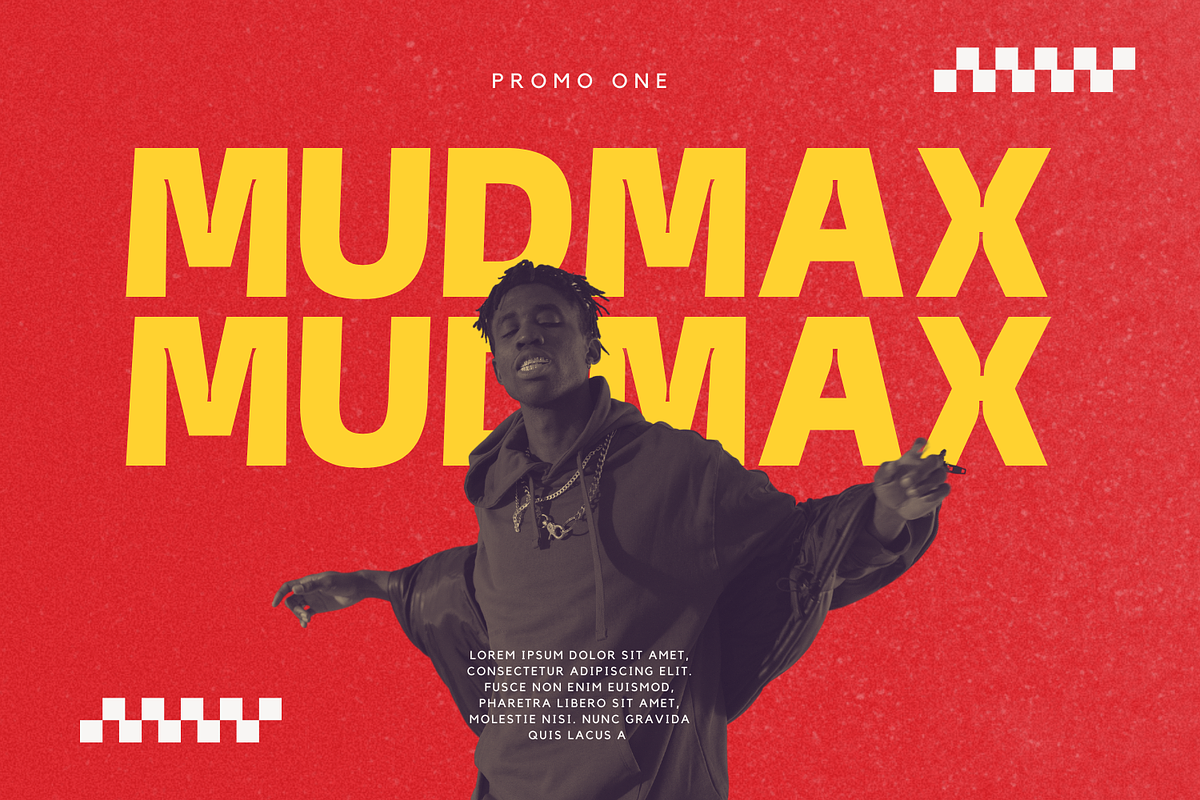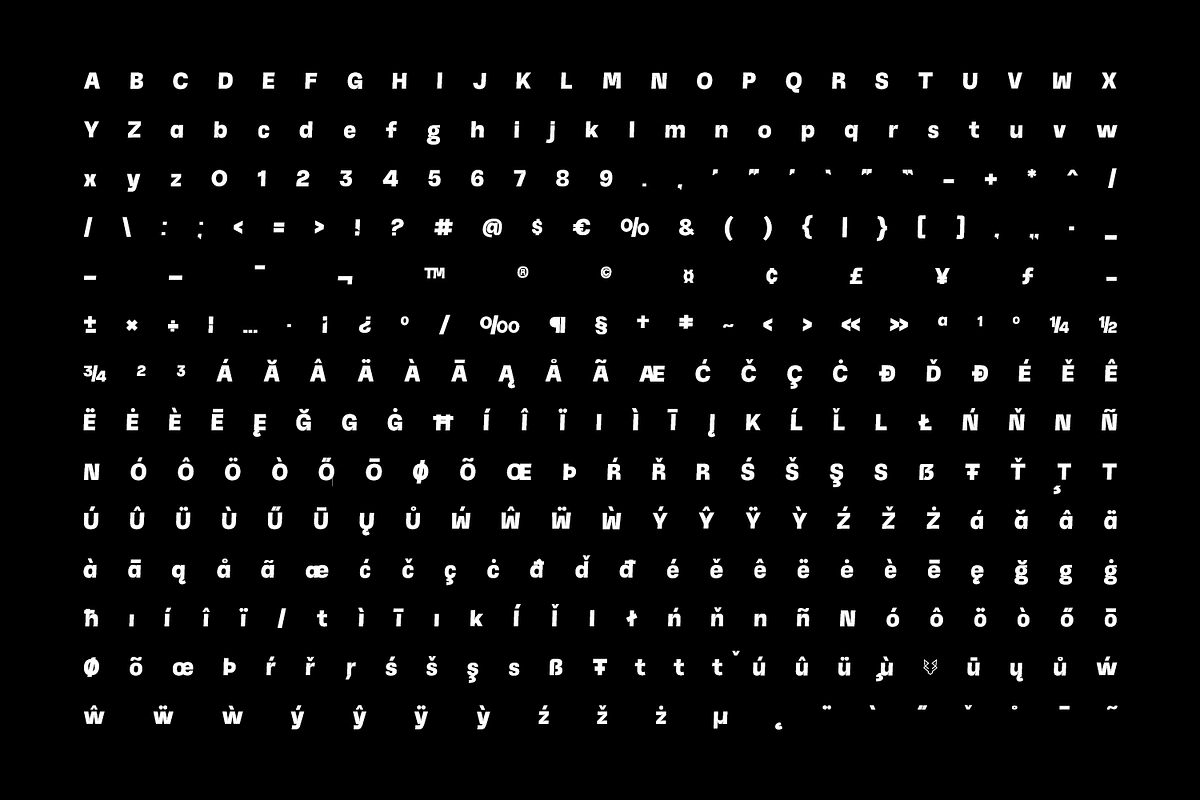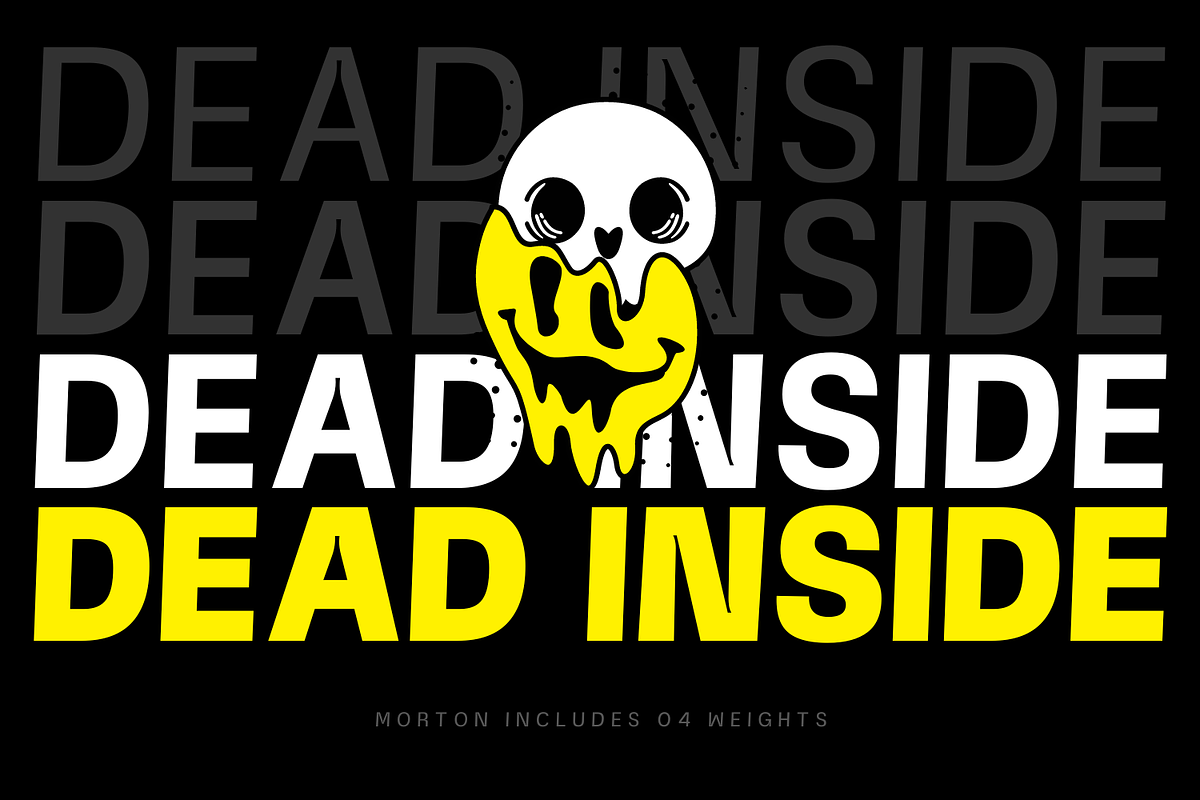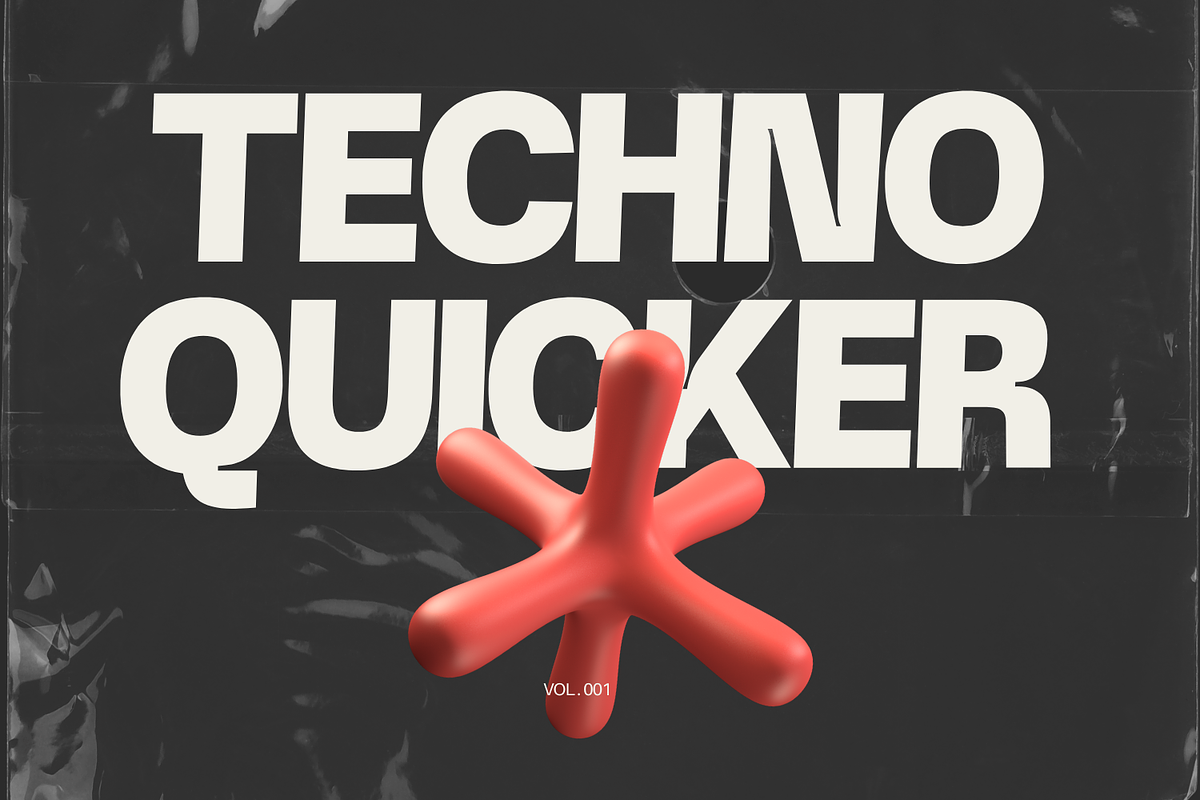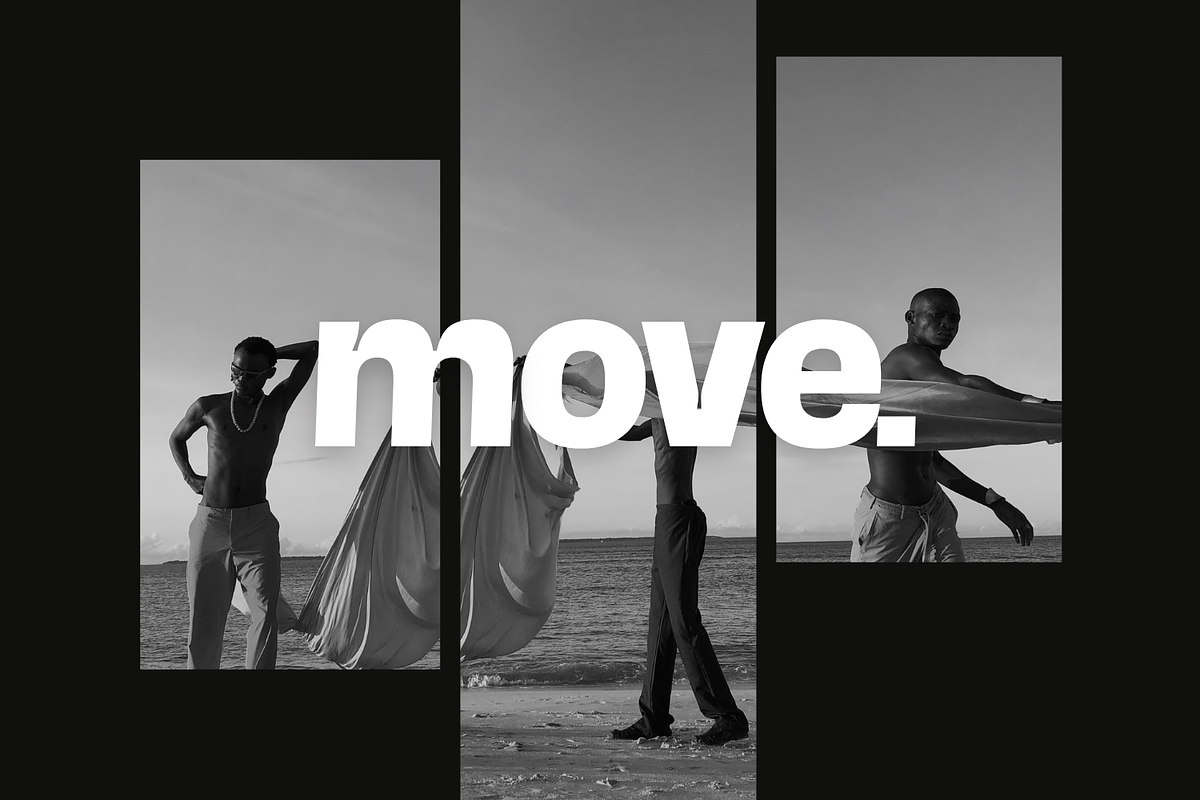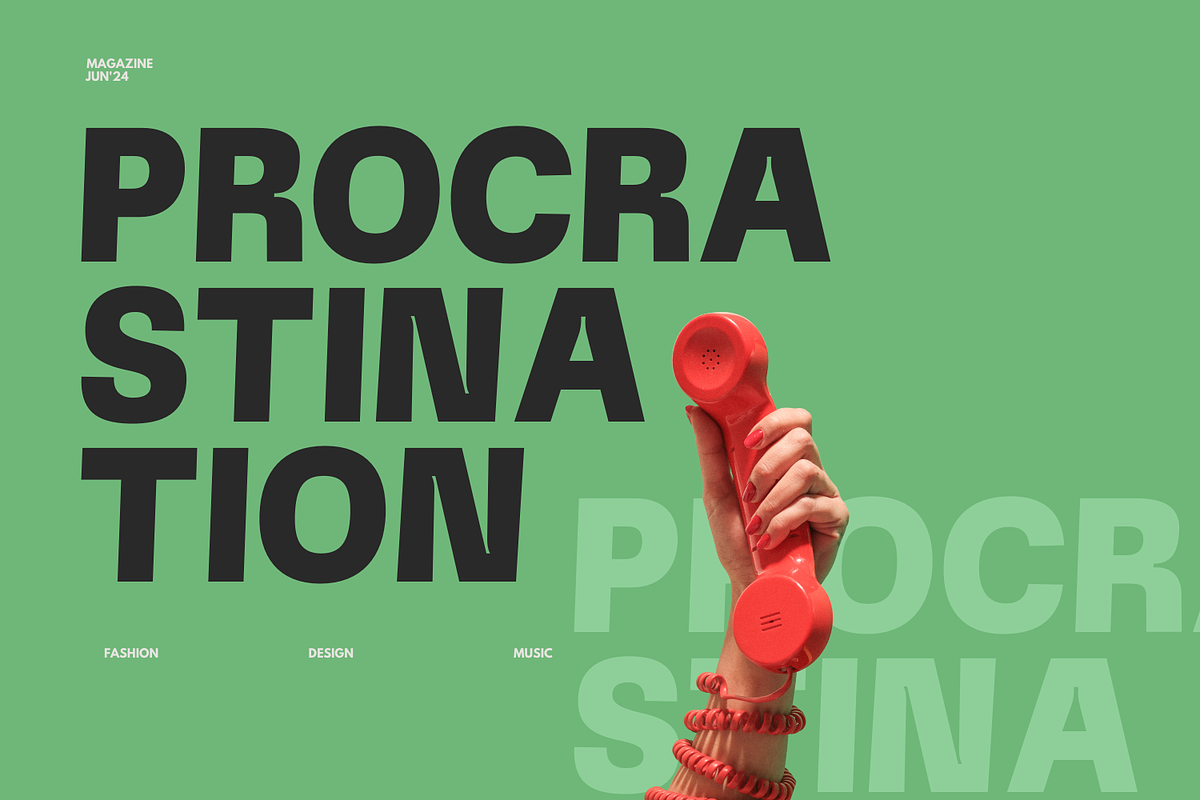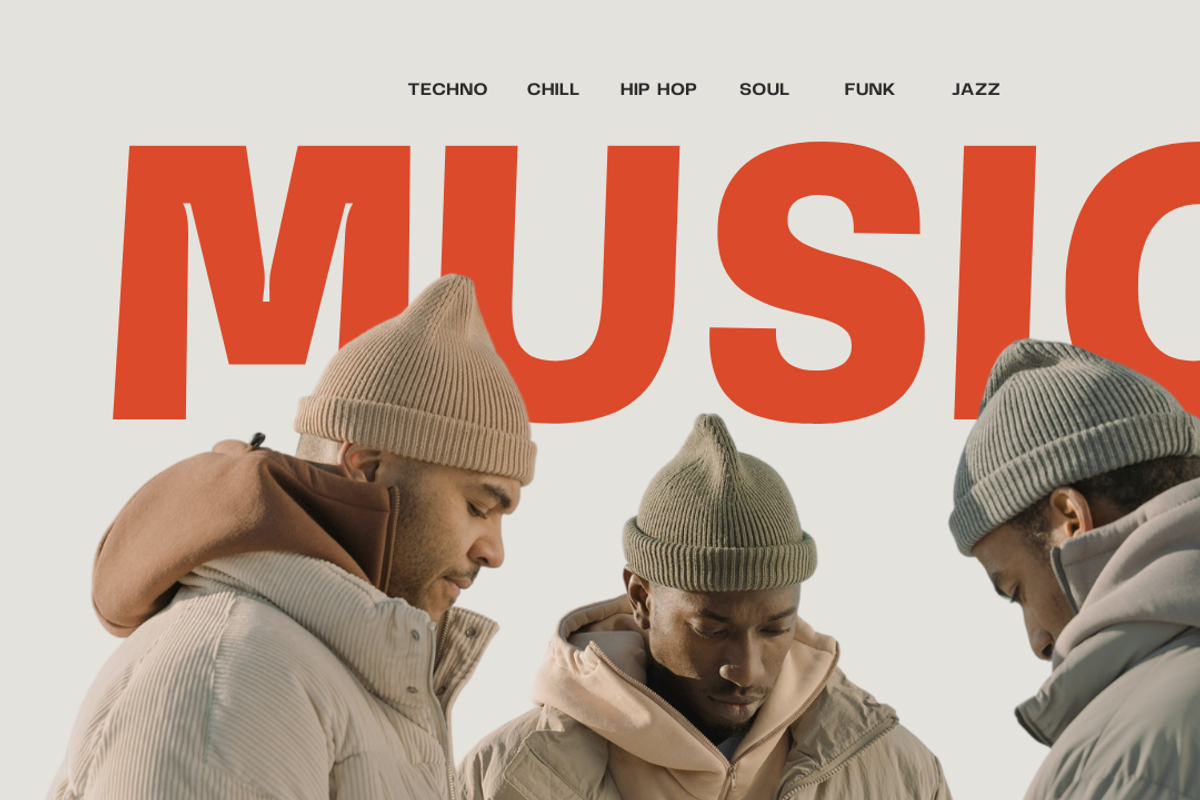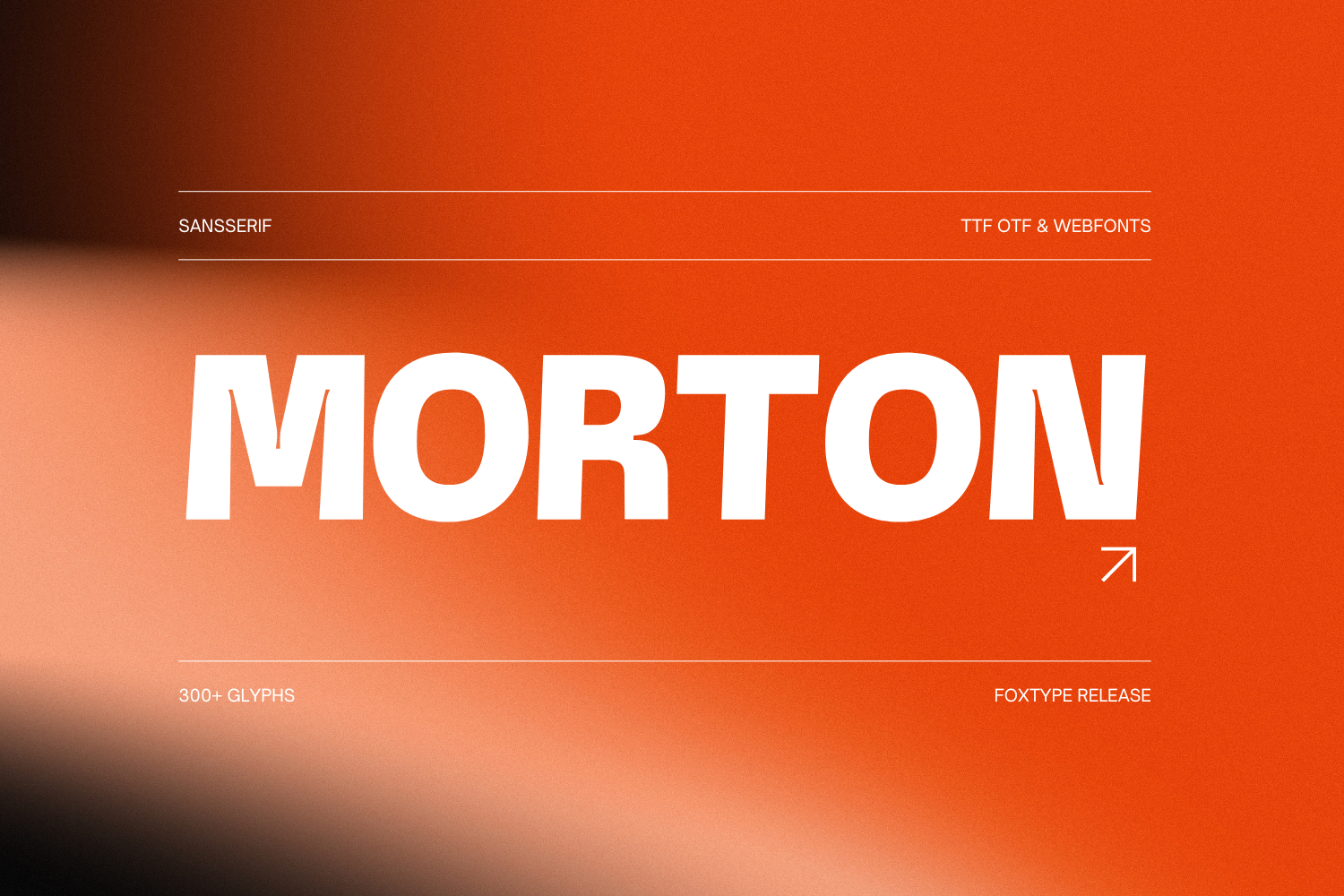
Morton Branding Typeface
Introducing Morton Branding Typeface – the ultimate choice for modern posters, magazine covers, banners, and branding projects. Specially designed for 2024 trends, Morton offers a sleek and contemporary style with elegant curves that make your designs stand out.
This versatile typeface includes four distinct weights: Regular, Medium, Semibold, and Bold, providing you with the flexibility to create eye-catching visuals that leave a lasting impression. Perfect for any creative project, Morton Branding Typeface ensures your work exudes professionalism and sophistication.